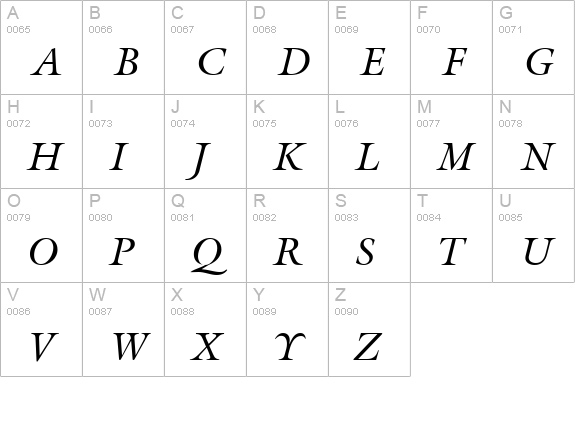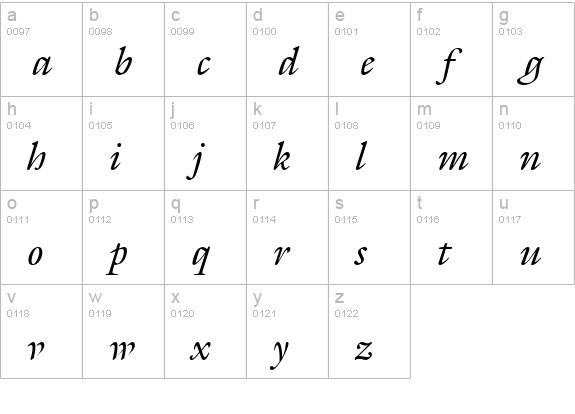
Acanthus SSi Italic is a distinctive, italic variant in the Acanthus typeface family \xE2\x80\x94 well suited to design and typography projects.
Acanthus SSi Italic font exudes elegance and sophistication with its intricate and delicate design. The flowing curves and ornate details give this font a timeless and classical feel, making it perfect for adding a touch of luxury to any project. The italic style adds a sense of dynamism and movement, making it ideal for conveying a sense of grace and refinement. Best of all, Acanthus SSi Italic font is completely free to download at FontsMarket.com. Whether you're working on a wedding invitation, a branding project, or simply want to elevate your designs, this font is a versatile choice that will surely make a lasting impression. Download it today and add a touch of sophistication to your creations with this stunning typeface.